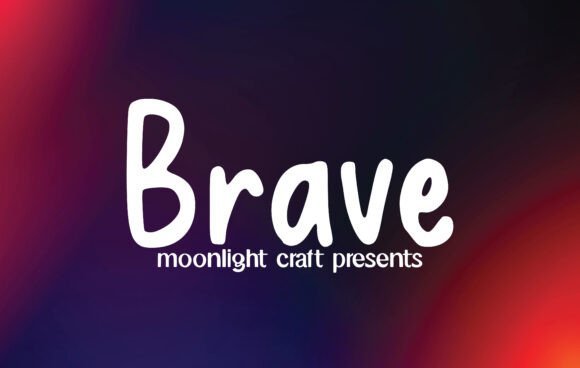
The Perfect Font for Unleashing Your Creative Genius
Have you ever stared at a blank page, feeling the spark of inspiration within you, but struggling to put it into words? You’re not alone. Many designers have been there, searching for the perfect font to bring their creative ideas to life. That’s where the Brave Font comes in – a beautiful, handwritten font designed to capture the essence of your imagination.
This lovely font is more than just a pretty face; it’s a powerful tool for designers who want to make a lasting impression. With the Brave Font, you can create eye-catching logos, branding, and quotes that speak directly to your audience. Whether you’re a seasoned pro or just starting out, this font is a valuable asset to have in your toolkit. So why settle for ordinary when you can be bold and daring with the Brave Font?
Key Features of Brave Font
- Unique Characteristics: Brave Font features a bold and modern design, with a mix of geometric and organic elements, making it perfect for use in digital and print media.
- Font Weight and Style: Brave Font includes multiple font weights, ranging from Light to Extra Bold, and various font styles, such as Regular, Italic, Bold, and Bold Italic.
Brave Font Review
First off, I love the unique character of the Brave Font! ✨ It’s bold, confident, and exudes a sense of strength. The font’s irregular shapes and letterforms give it a hand-drawn feel that’s perfect for adding a touch of personality to your designs.
Some of the things I really like about the Brave Font include:
- ✨ The font’s versatility – it works well for both digital and print applications
- ✨ The unique letterforms and irregular shapes add a touch of whimsy and personality to your designs
- ✨ The font is highly customizable, making it easy to tweak and adapt to your needs
- ⚠️ The font may not be suitable for all types of text-heavy designs, as the irregular shapes and letterforms can make it difficult to read at small sizes
- ⚠️ The font may require additional styling to make it look its best, which can add extra time and effort to your design process
Overall, I think the Brave Font is a great choice for designers who want to add a touch of personality and whimsy to their designs. While it may have some limitations, the font’s unique character and versatility make it a great addition to any design toolbox.
The Brave Font is ideal for:
- Creating bold and eye-catching headlines.
- Adding a touch of modernity to your designs.
- Representing courage and confidence in your branding.